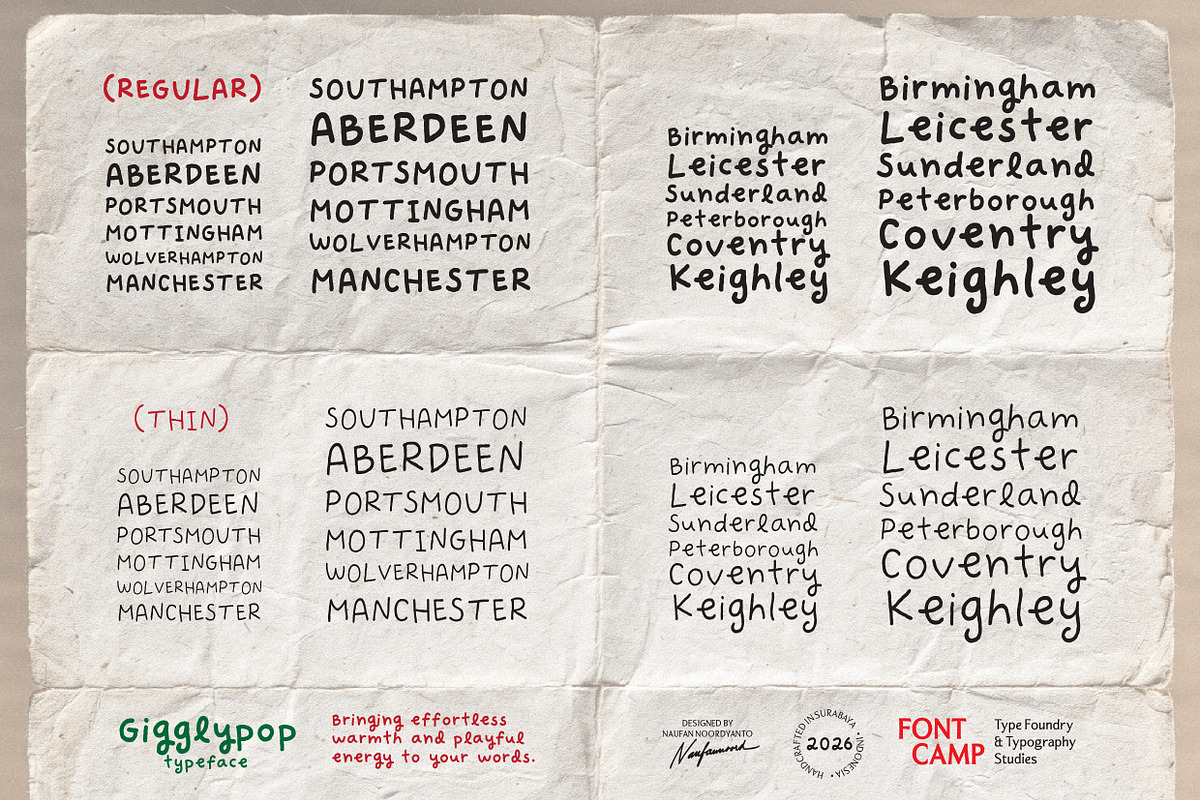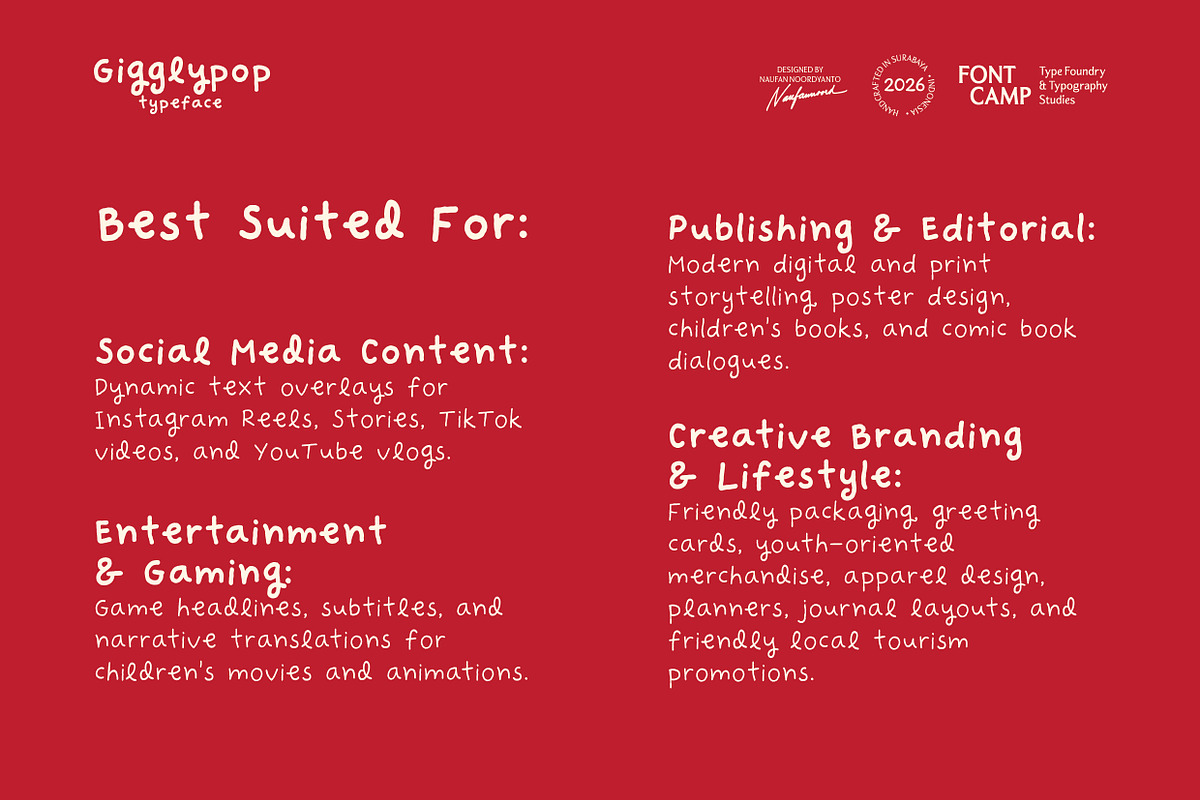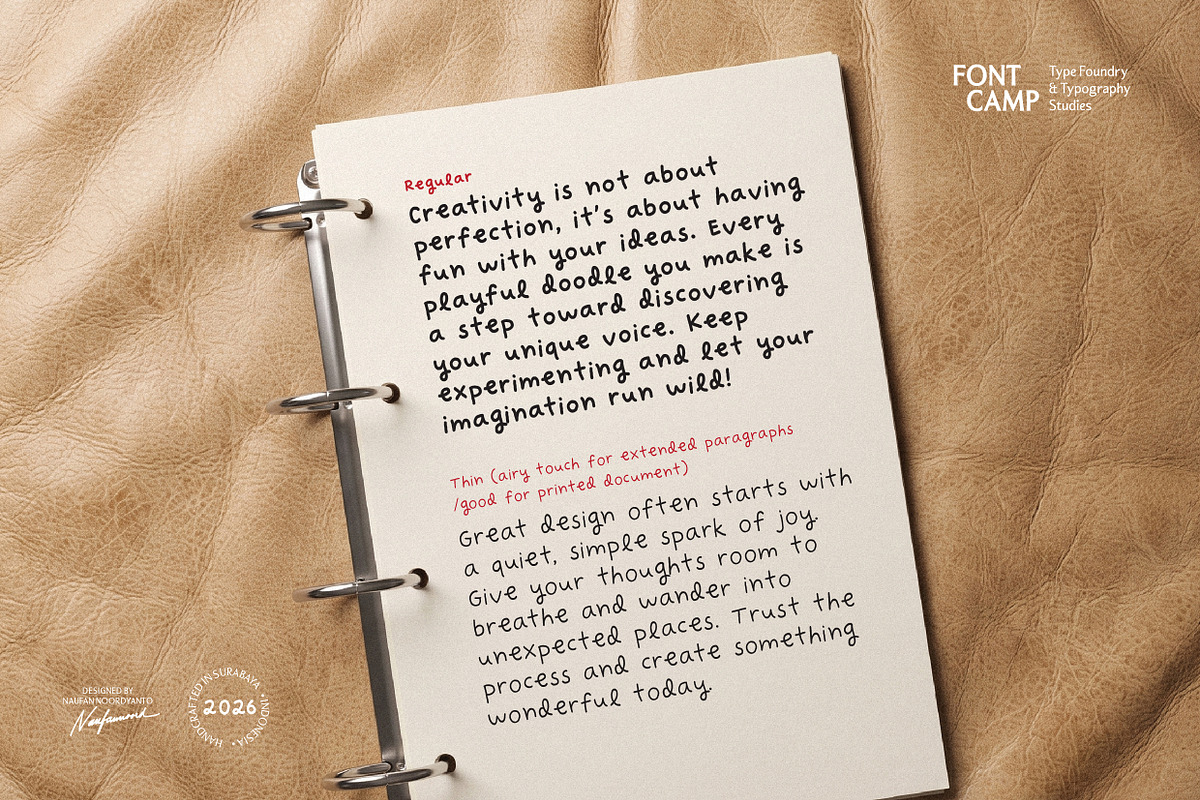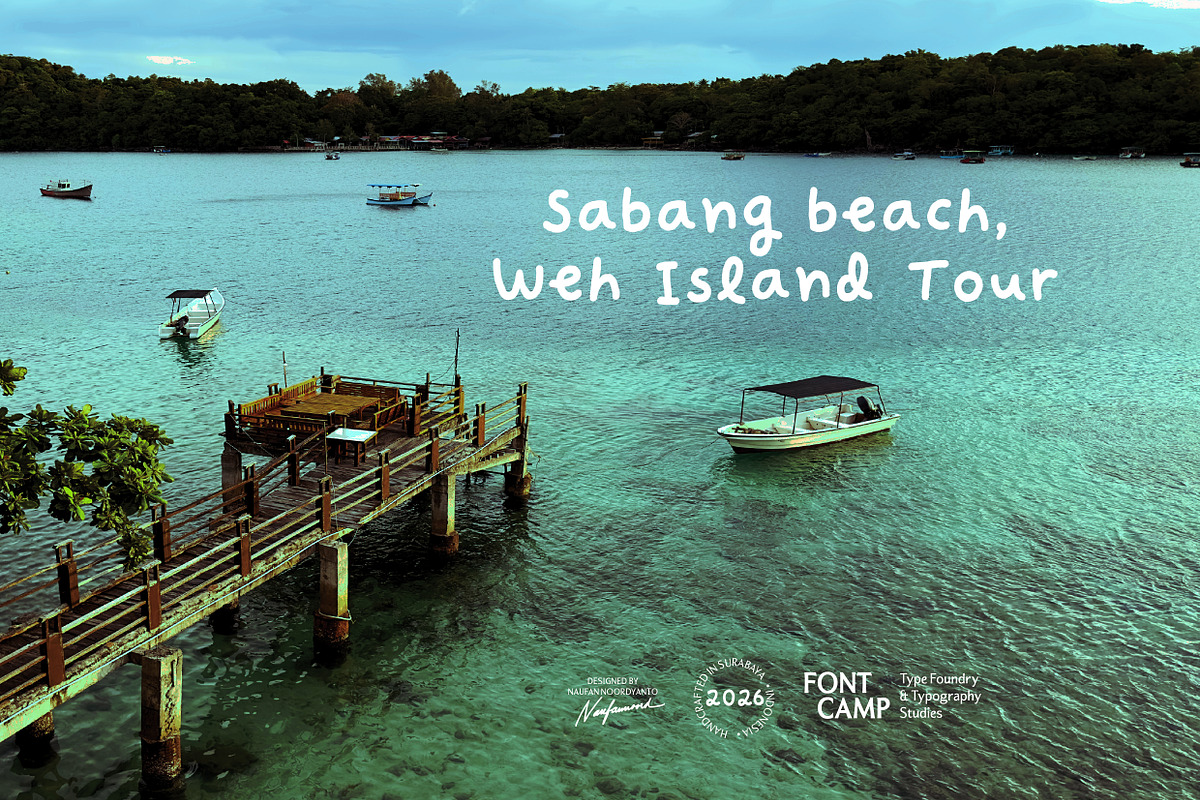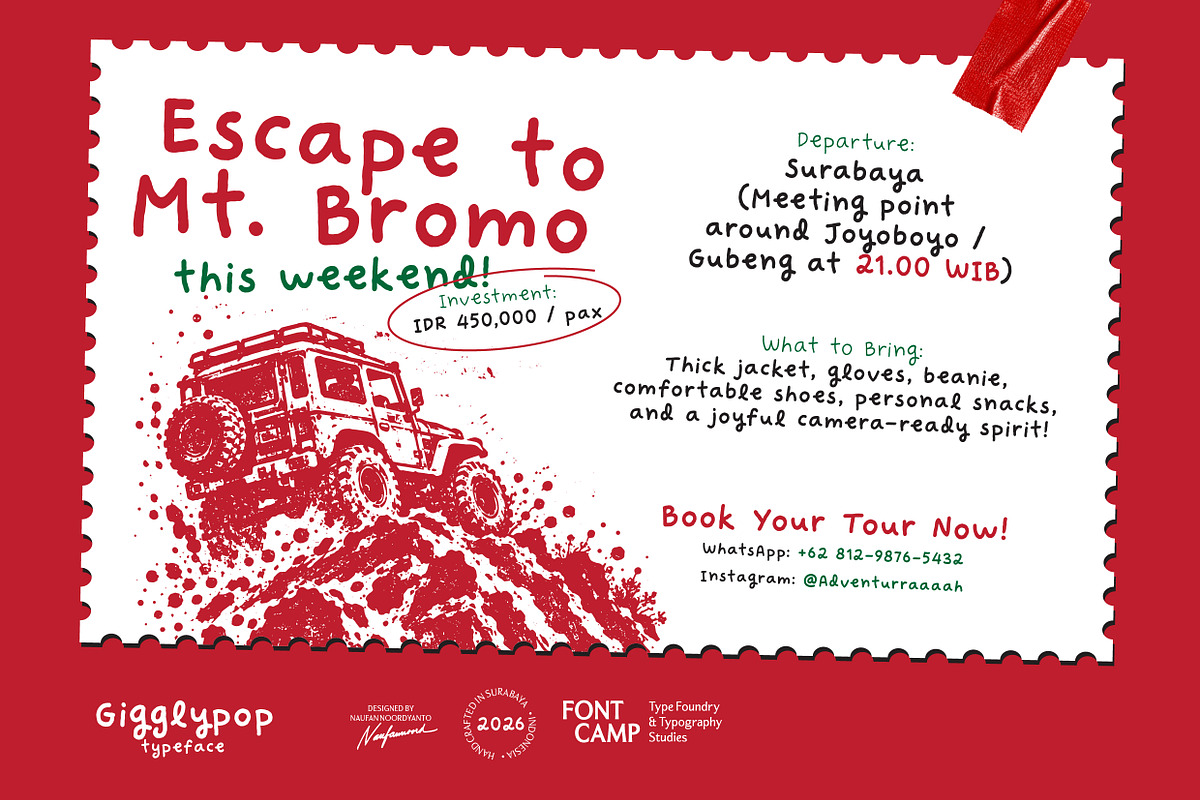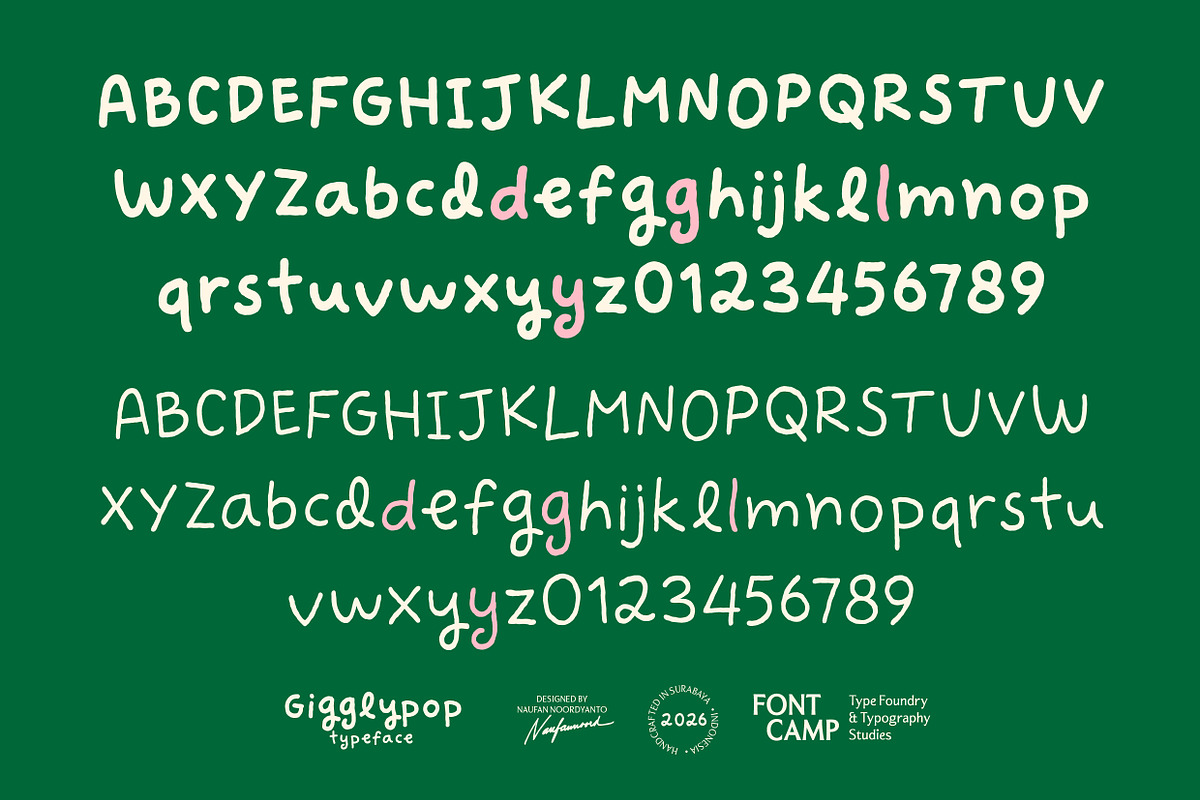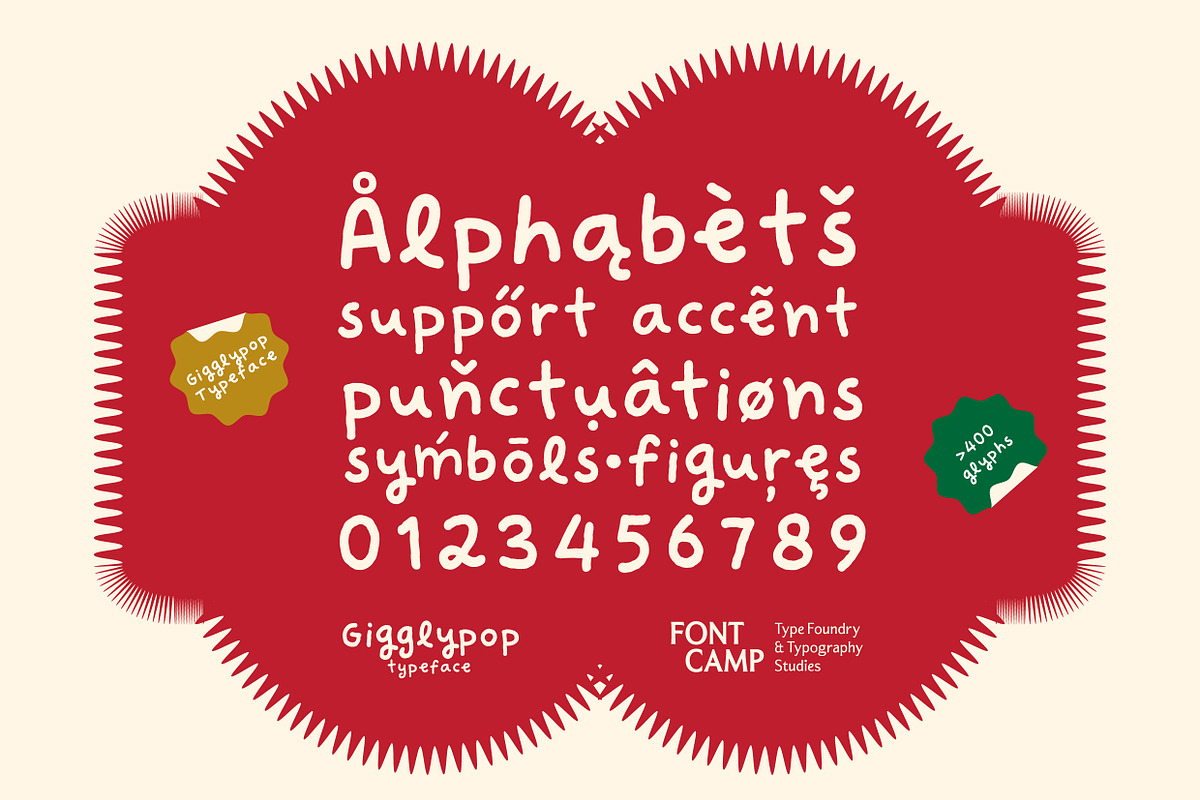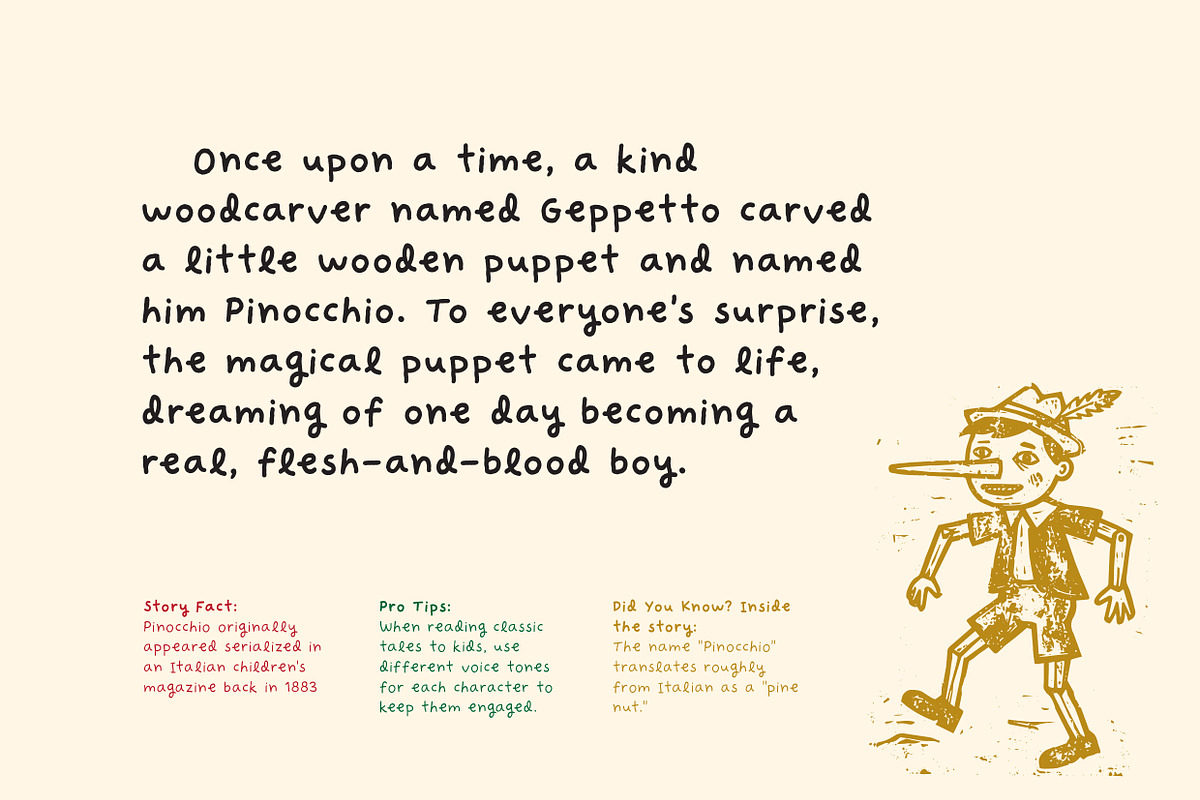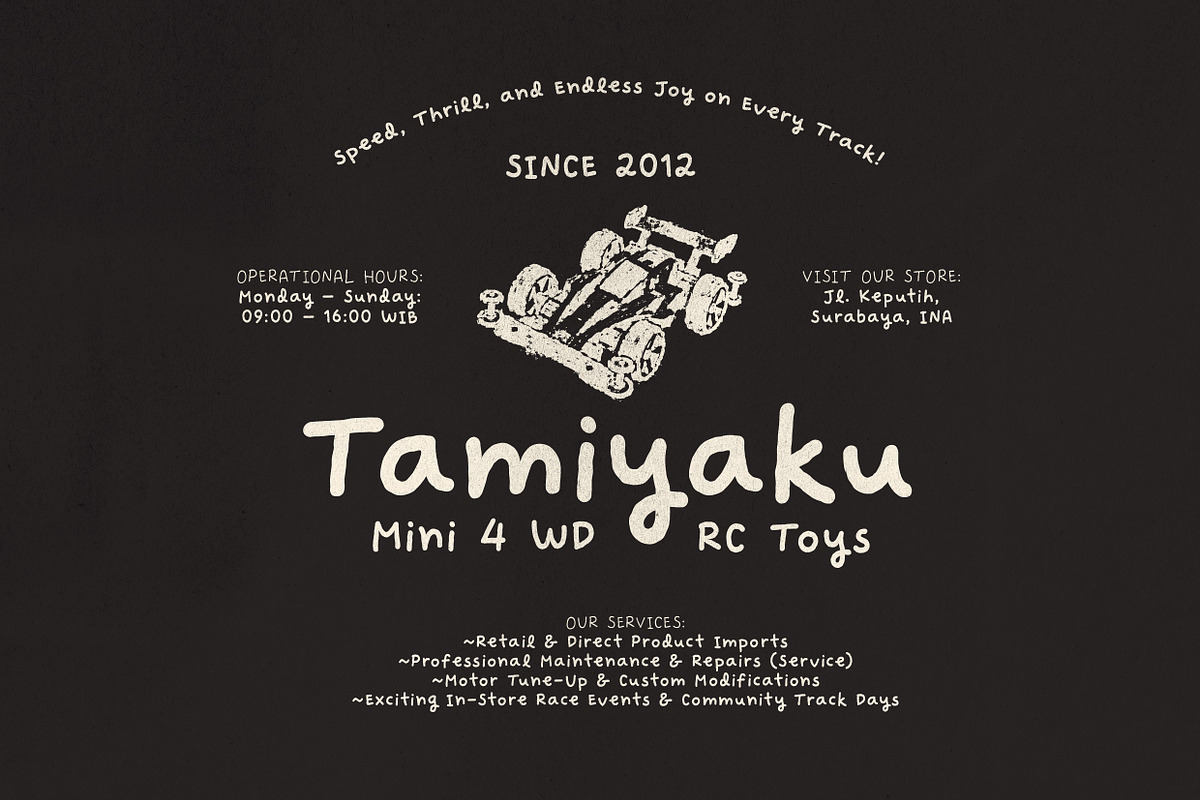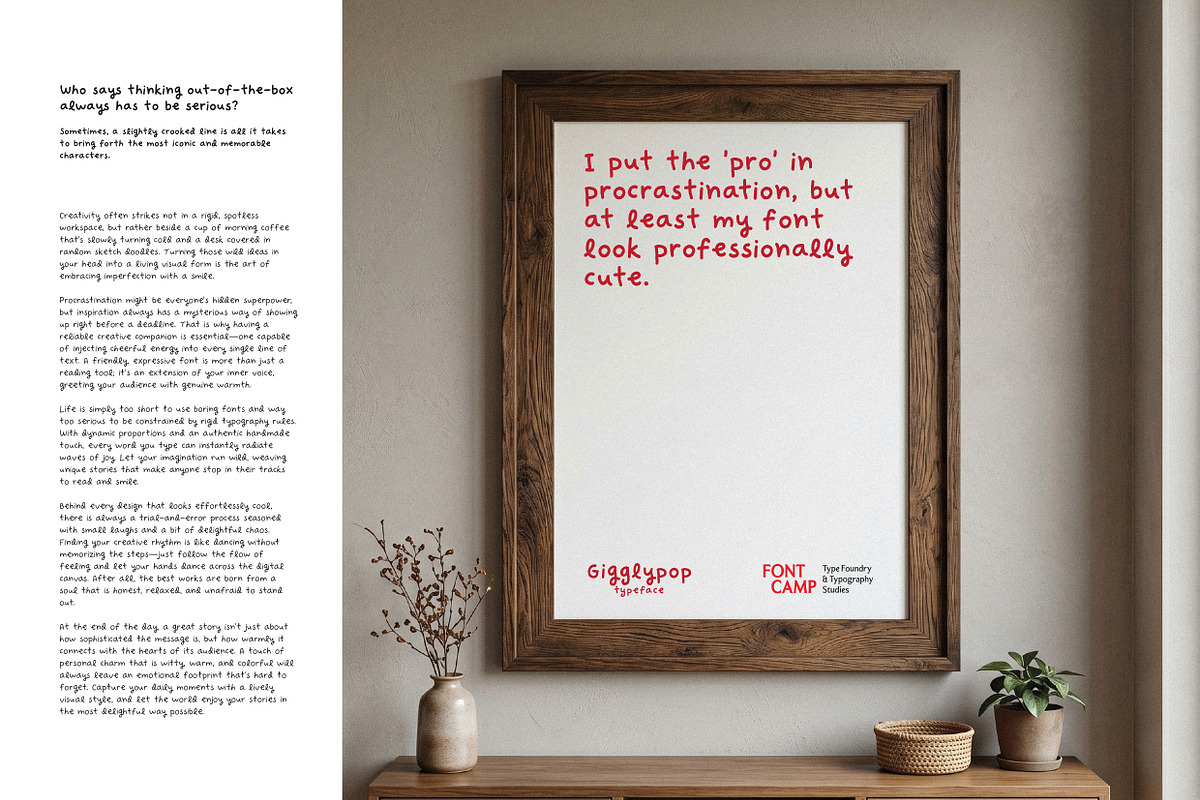
Gigglypop Font
Introducing the Gigglypop Typeface.
Gigglypop is a cheerful and playful typeface defined by its lighthearted feel and approachable visual warmth, adapted from adorable and joyful handwriting. Its most prominent feature is a delightfully bouncy, quirky structure and spontaneous, hand-drawn lines, giving the text a feeling of effortless engagement, bubbly movement, and friendly energy. The letterforms are naturally vibrant and inviting with uneven proportions, allowing for expressive, comforting text layouts that maintain a captivating yet gentle presence.
A distinctly personal touch shines through its subtle imperfections, variable stroke weights, and energetic rhythm at the edges of each letter. The unique curves and lively strokes create a sweet, striking, and spirited aesthetic. This cozy and energetic structure makes Gigglypop an ideal choice for social media content (such as Instagram Reels, Stories, and TikTok videos), daily video vlogs, modern digital and print storytelling, children's storybooks, comic dialogues, creative poster headlines, toy packaging, or any modern branding project that embraces a relaxed, free-spirited vibe.
Expansive character library: engineered with 440 meticulously crafted glyphs, providing comprehensive coverage for expressive displays, symbols, and diverse punctuation.
Dynamic Multi-Style architecture: thoughtfully designed across a versatile family comprising 2 precise styles (Regular and Thin) to accommodate both short eye-catching headlines and breathable long-form text layouts.
Global linguistic support: built with an extended character set to ensure seamless compatibility with multiple languages, supporting diverse diacritics and special features.